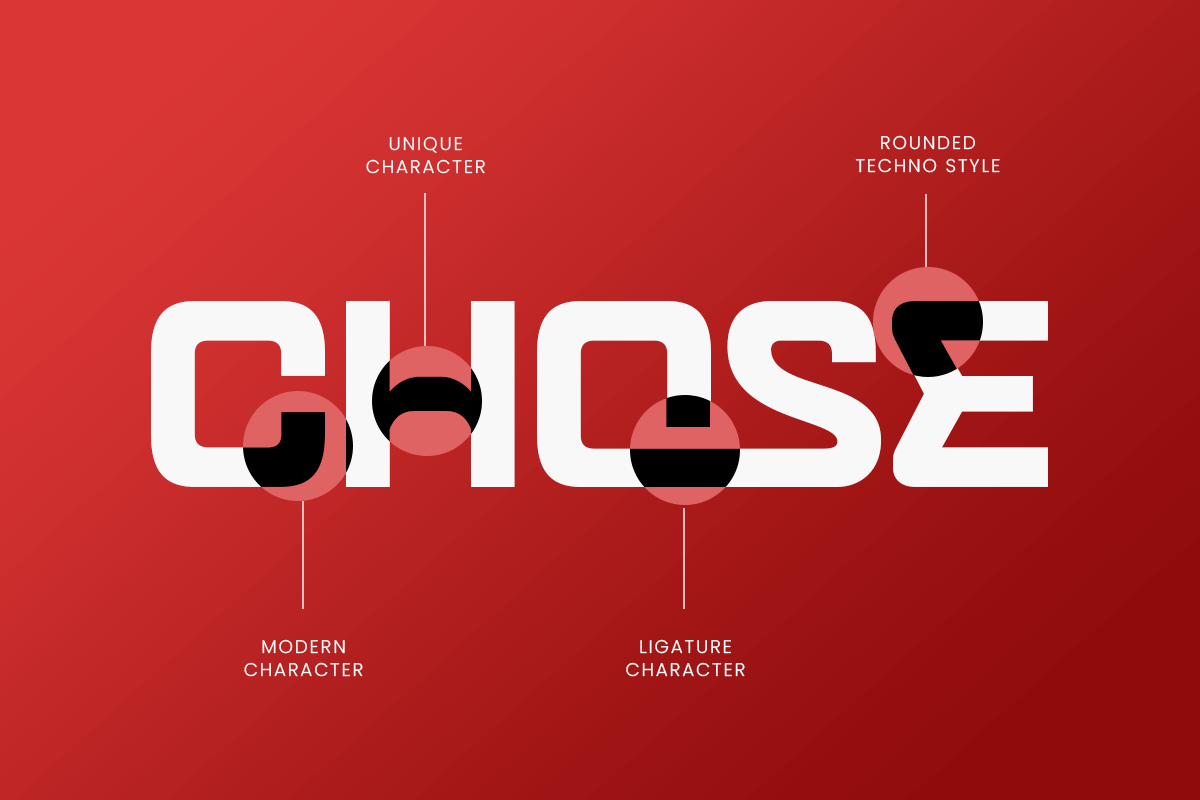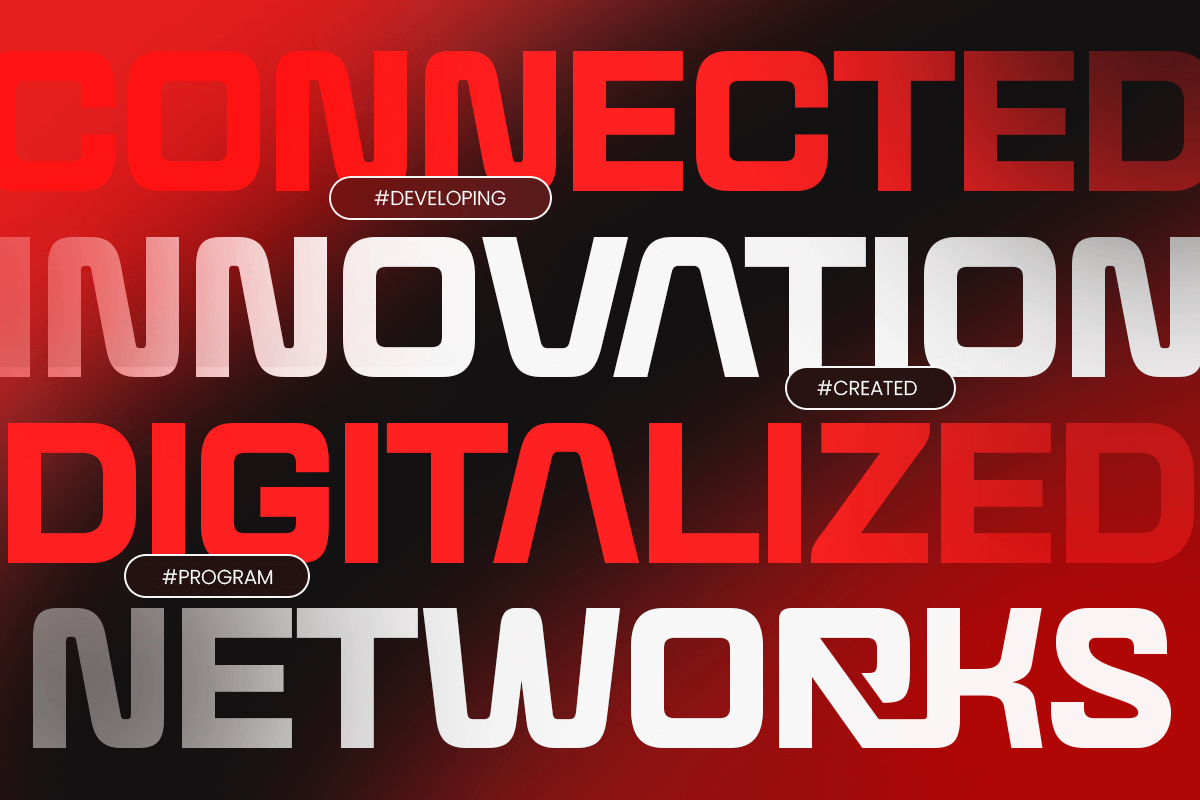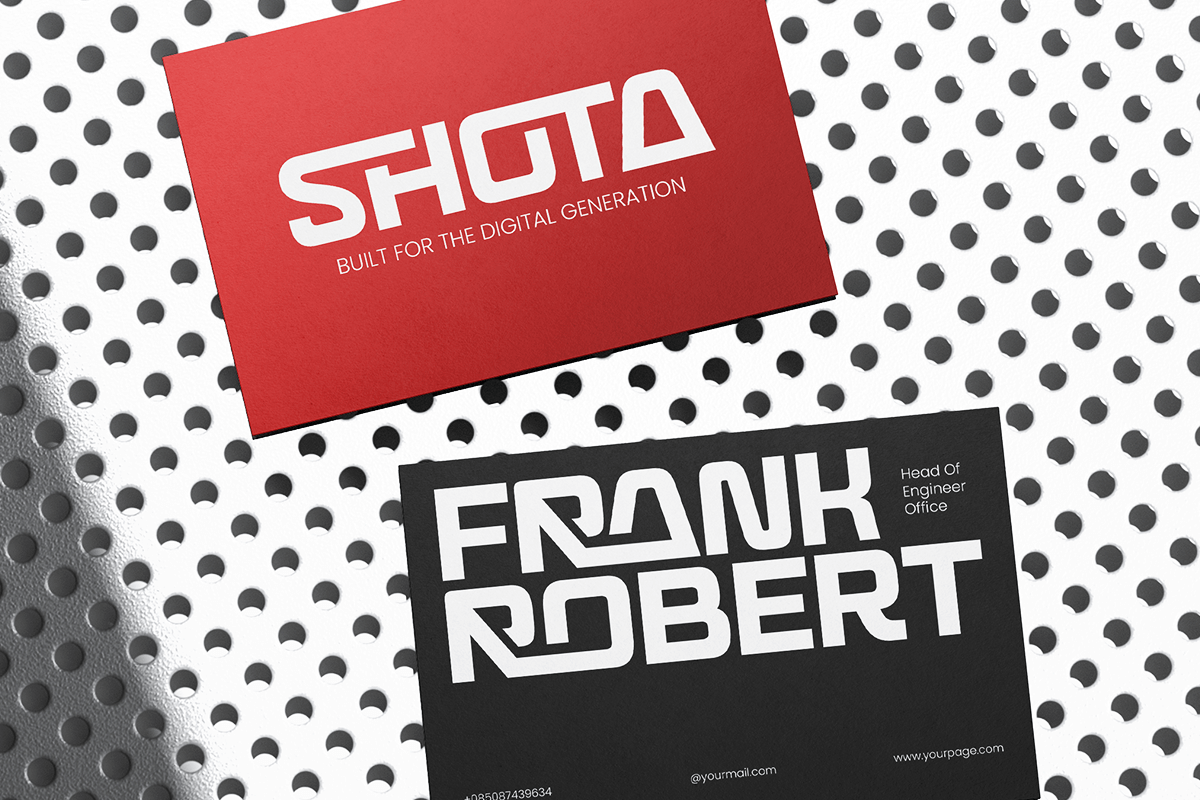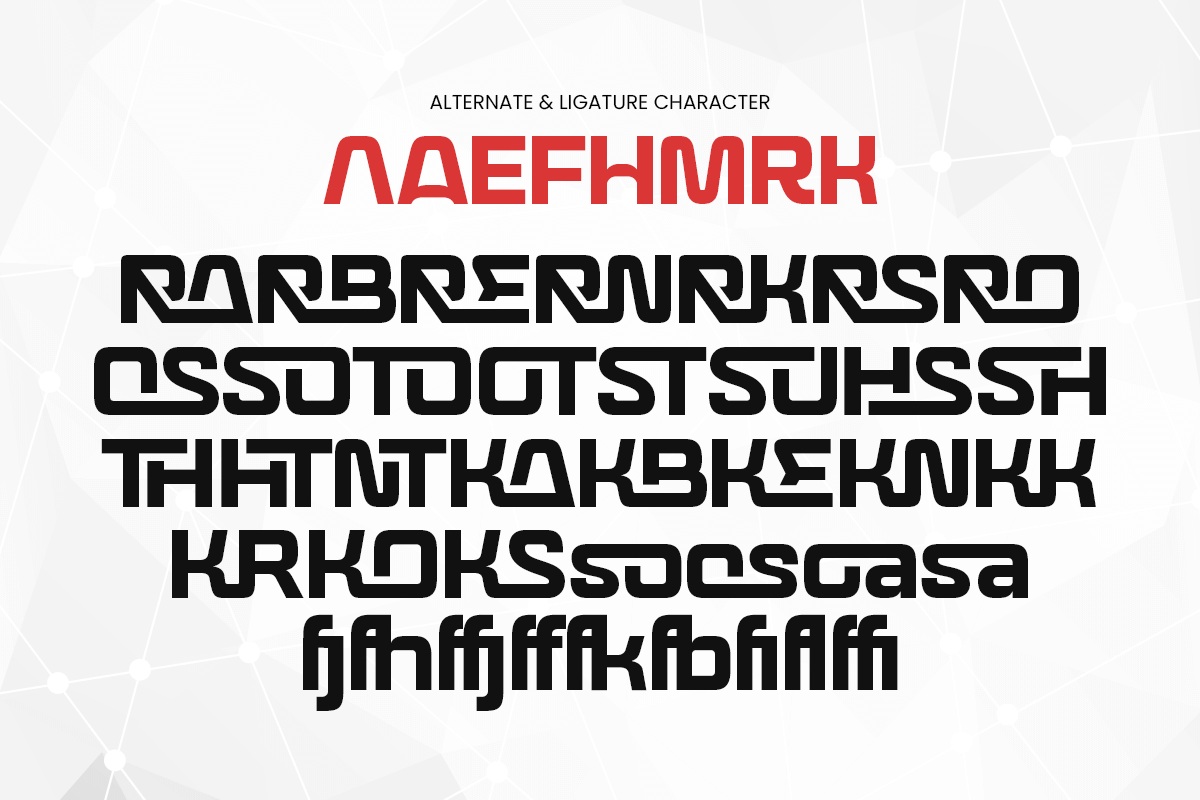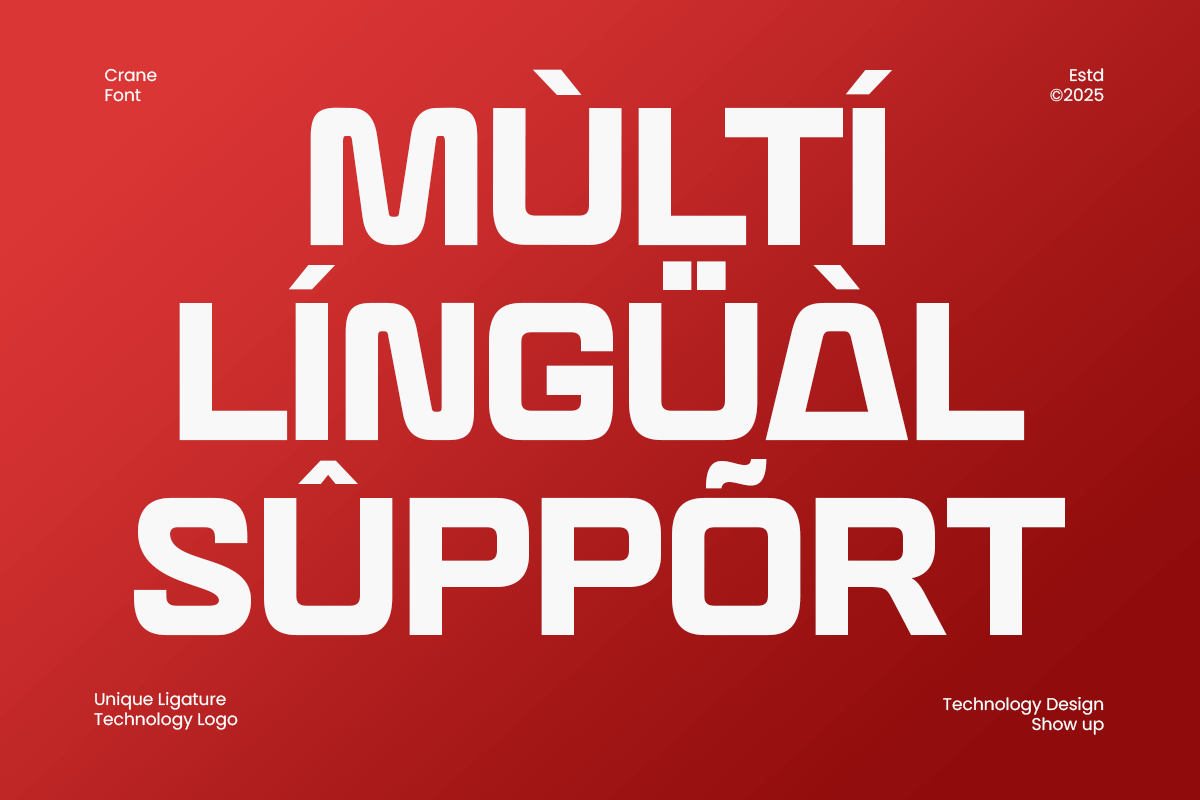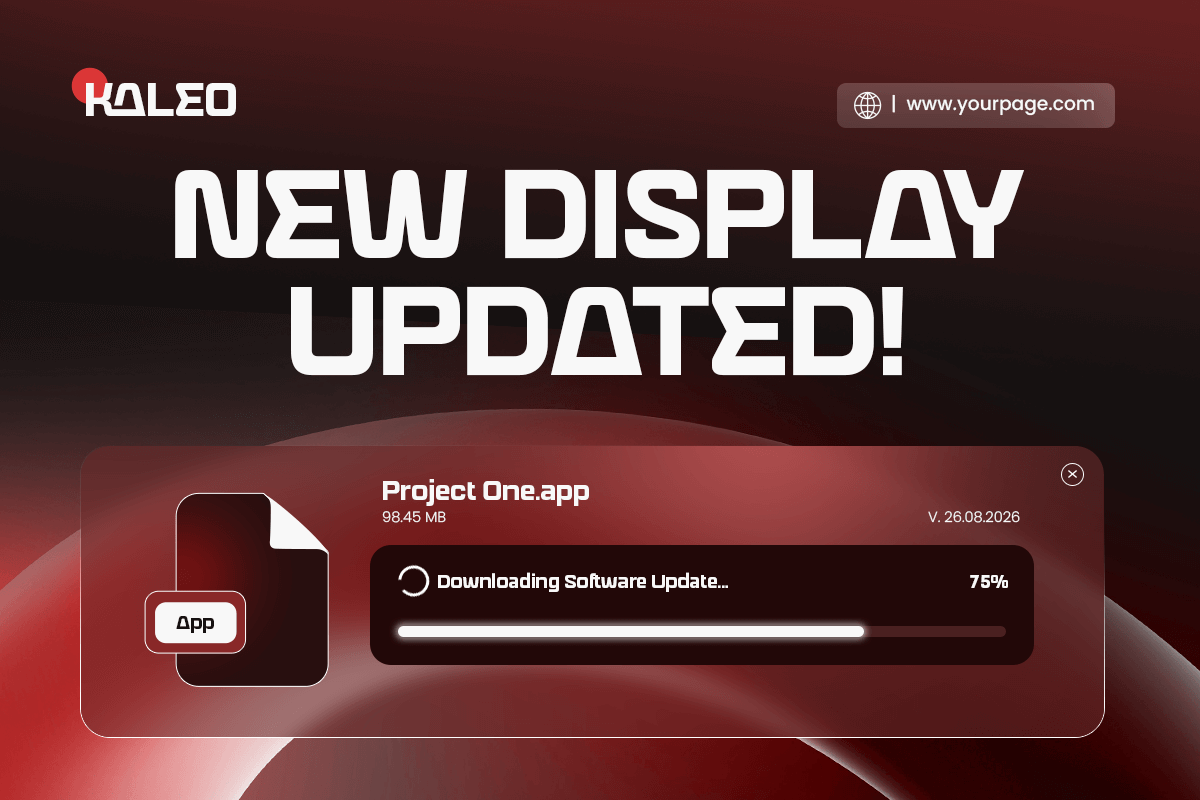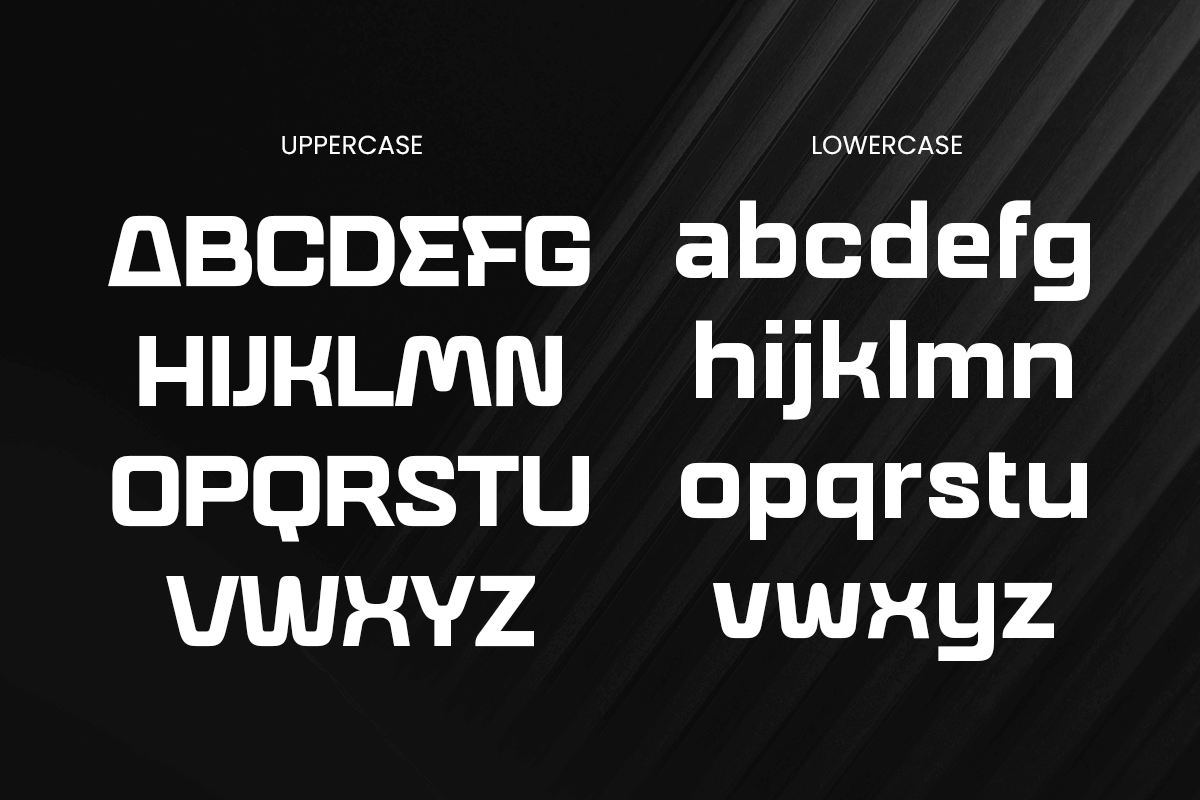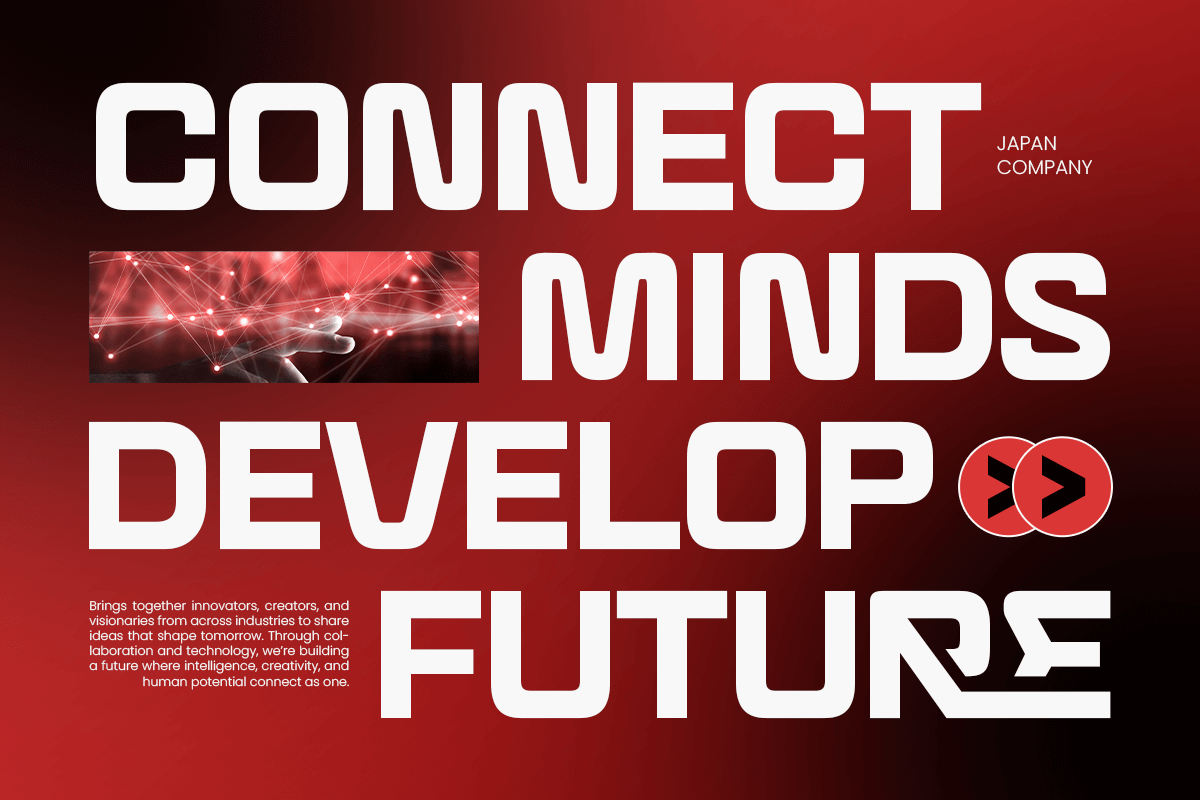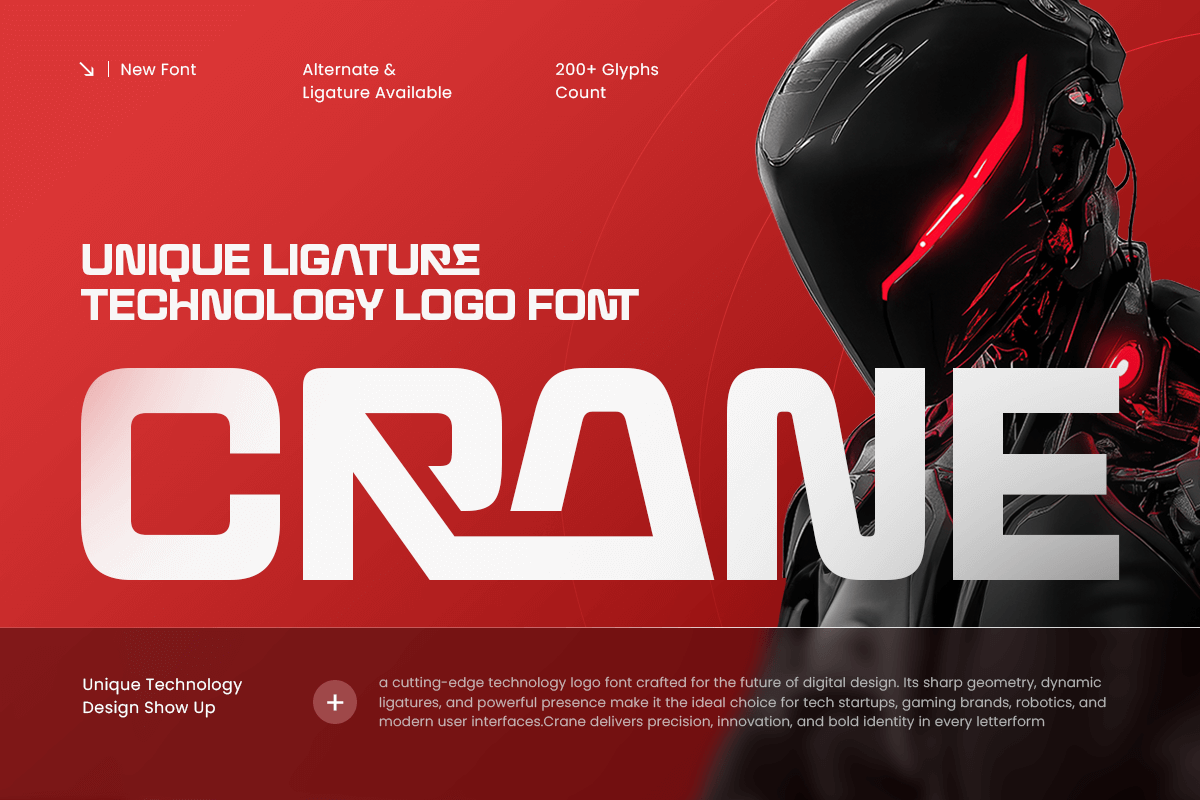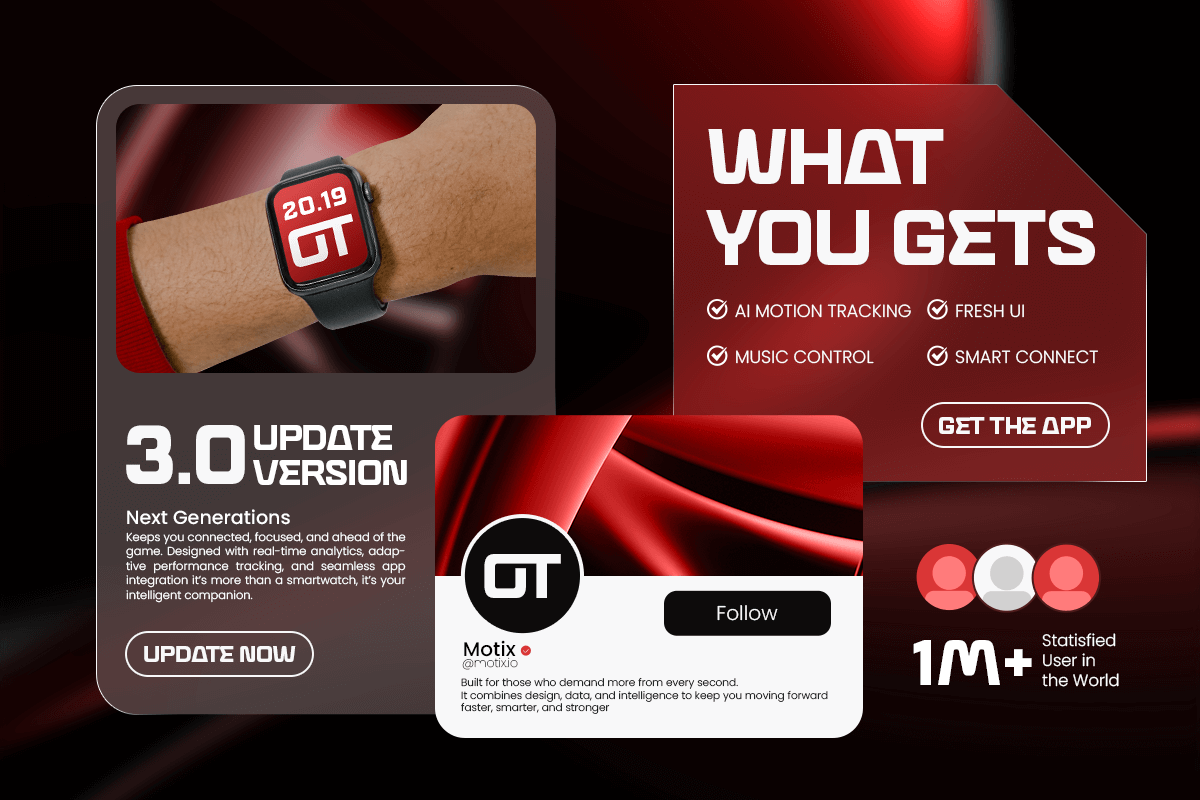
Crane - Unique Technology Logo Font
Crane – Unique Ligature Technology Logo Font
Crane is a modern technology font featuring unique ligatures and sleek geometric construction, designed to elevate branding with a futuristic and professional identity. Its refined shapes, clean lines, and innovative connections make Crane ideal for tech companies, software startups, digital products, app interfaces, and all forms of high-tech visual branding.
Built with precision and minimalistic style, Crane offers a distinctive appearance that strengthens logo readability while maintaining an advanced, modern character. It delivers a perfect balance of creativity and clarity, making it a versatile choice for designers seeking a premium technology logo font with unique detail.
Crane – Unique Ligature Technology Logo Font Features:
* Distinctive ligature style with modern tech aesthetics
* Perfect for logos, digital branding, UI/UX, and futuristic visuals
* Complete uppercase, lowercase, numerals, and punctuation
* Clean geometric shapes with optimized kerning
* Ideal for innovative, minimal, and professional tech designs
Build a strong and memorable identity with Crane – the unique ligature font crafted for modern technology branding.